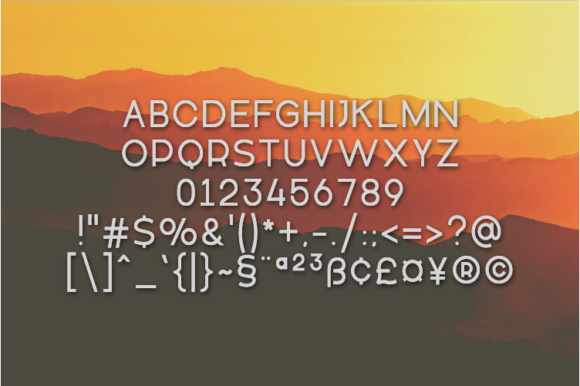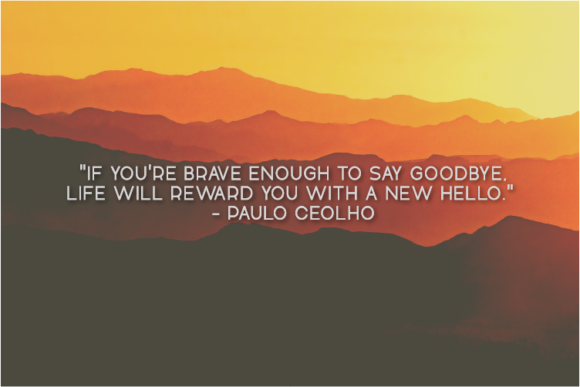
Introduction to Protrake Font
Protrake is an authentic and neat sans serif font.
Why Choose Protrake Font?
Protrake Font offers exceptional quality and versatility, making it a valuable addition to your design toolkit. Whether you’re creating for personal projects or commercial use, Protrake Font delivers professional results.